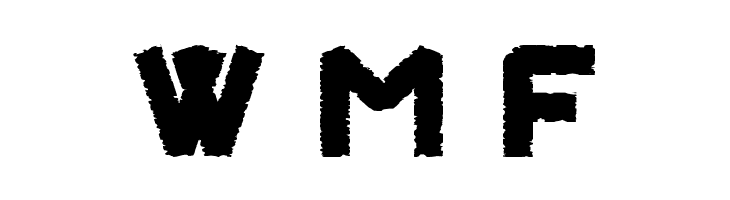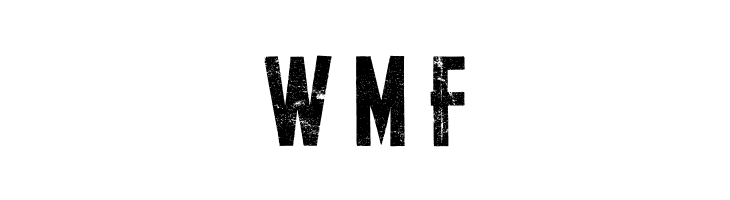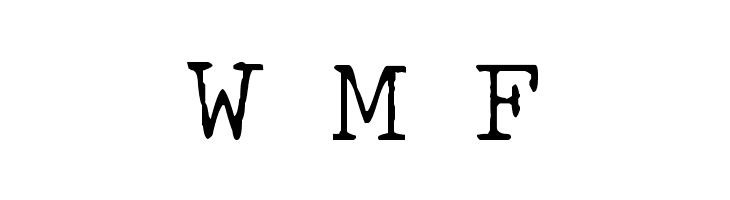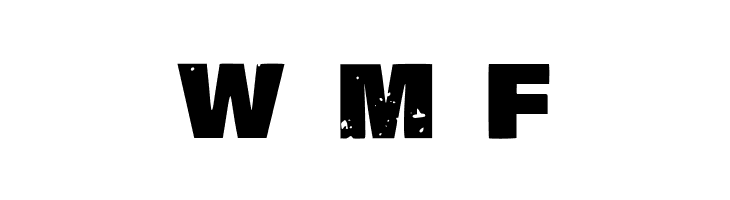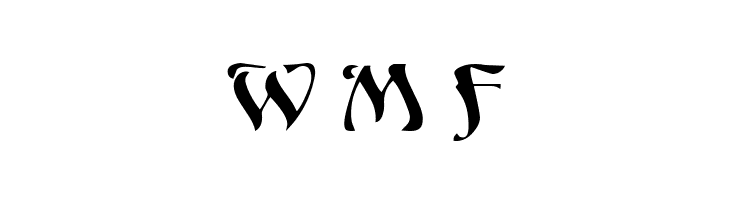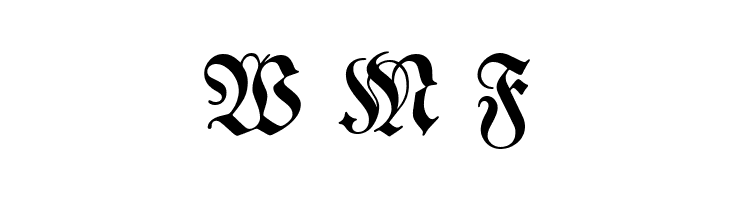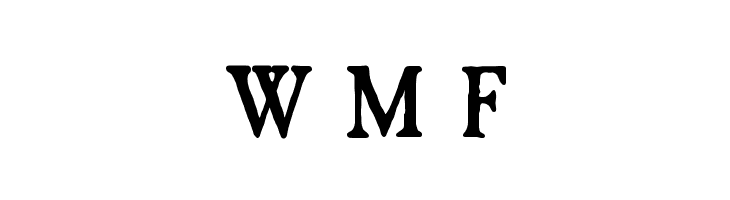
A bold, distressed font with a vintage, rugged texture.
A vintage, distressed typewriter-style font with monospaced characters.
A vintage typewriter-style font with textured, irregular strokes.
A bold, distressed font with a textured, grunge-like appearance.
A bold, distressed font with a rugged, industrial style.
A bold, medieval-inspired font with sharp serifs and a Gothic flair.
An ornate blackletter font with intricate, decorative letterforms.
A bold, antique-style serif font with a classic and historical charm.
A vintage, typewriter-style font with a classic, monospaced design.
A bold, distressed font with a rugged, vintage appearance.